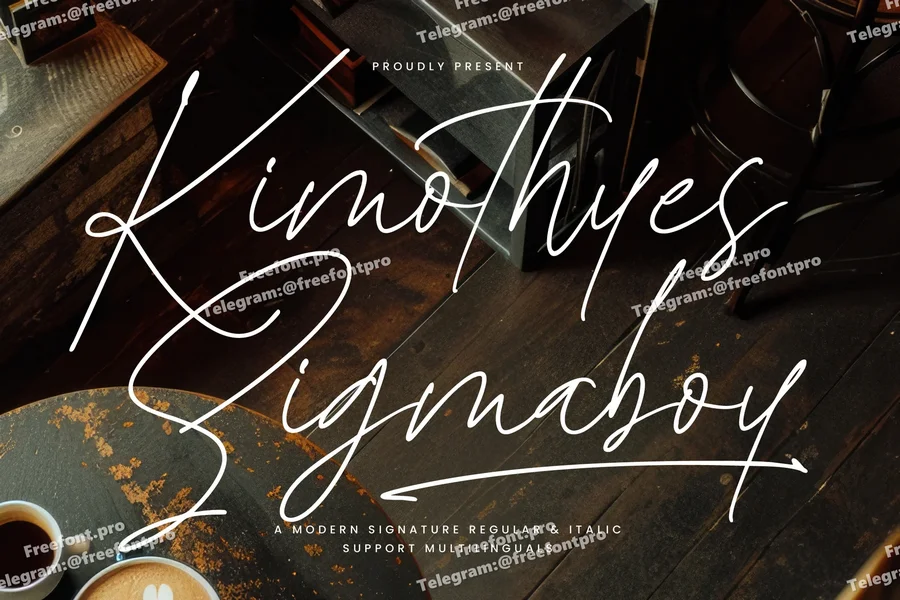
Kimothyes Sigmaboy
Kimothyes Sigmaboy is a stylish and contemporary signature font that captures the elegance of handwritten strokes with a modern edge. Designed with refined curves and natural flow, this font exudes sophistication and personal charm, making it ideal for branding, social media, and editorial design.
Modern Signature Style: Kimothyes Sigmaboy brings the art of signature fonts to a new level with its sleek and effortless flow. Elegant & Versatile: The balance between elegance and casual charm makes it suitable for professional use or stylish personal design. Smooth & Natural Stroke: Designed to mimic real handwriting, giving your work a touch of authenticity and warmth. Complete Character Set: Includes uppercase, lowercase, ligatures, alternates, and multilingual support for global usability. Branding-Ready: Perfectly suited for logos, packaging, website headers, or custom signatures, enhancing your brand’s visual identity. Give your design projects a creative edge with Kimothyes Sigmaboy! Whether you’re building a logo, curating social content, or designing elegant invitations, this font adds the perfect blend of modern flair and handwritten beauty. Click to purchase and start crafting with class!